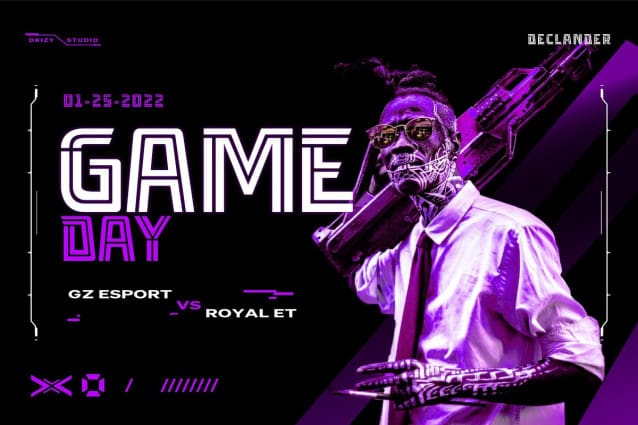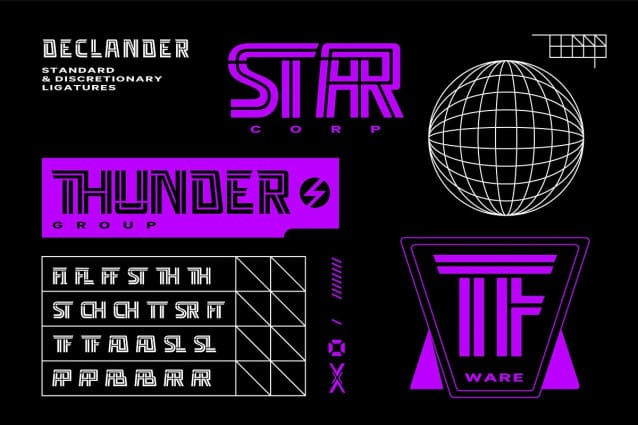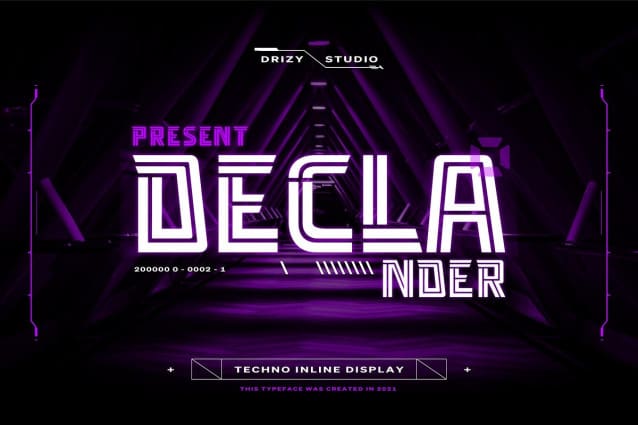
Declander Font
Declander Font is a Techno Inline font from Drizy studio. Provides all the basic styles you will need. It fits the futuristic, robotic, sci-fi theme of your projects.